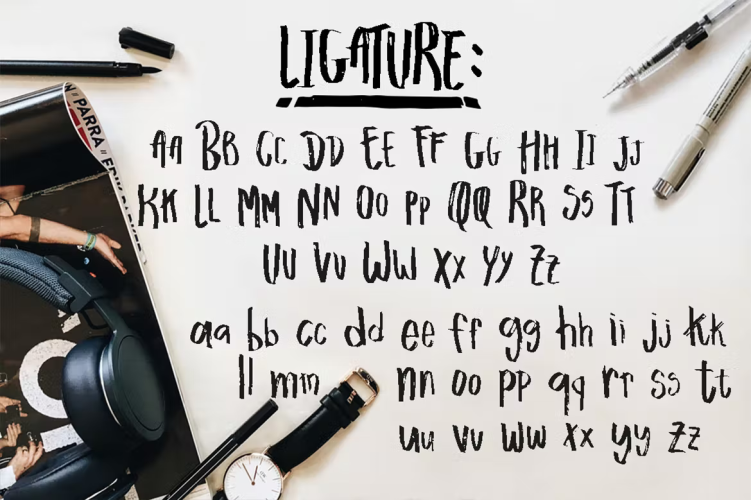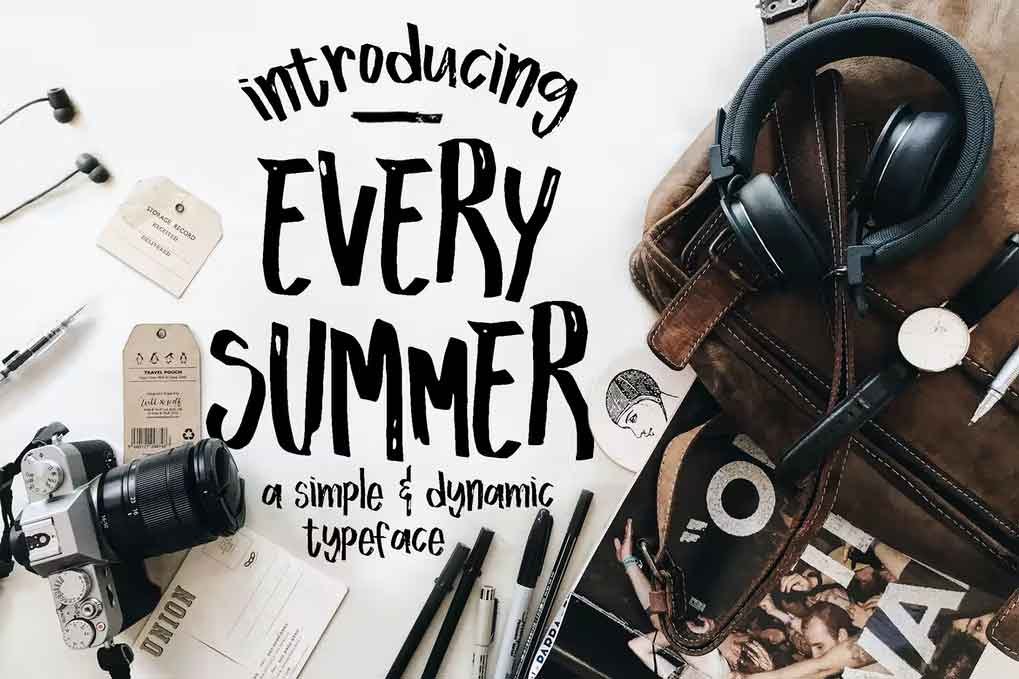
Every Summer Font
Every Summer is a dynamic, spontaneous typeface created manually using brush and marker. With a complete glyph available in the family, you can use Every Summer to create greeting card title, signature for design work, badge and sticker, logo and return address, some cover design and so forth, you decide!
Every Summer comes with complete accented glyphs for international languages and also, special ligature feature that allows you to create different look to your design.
Where Every Summer Font works best
A short phrase in Every Summer Font carries warmth that a typeset sans cannot fake; keep the rest of the card plain.
Chalkboard-style headings in Every Summer Font make a menu feel hand-made. Keep the dish descriptions in a simple face so prices stay readable.
One line of Every Summer Font over a photo is enough; the script carries the tone and the caption does the work.
What kind of work does Every Summer Font suit?
It sits in the Script And Handwritten group and reads as branding, script, script and handwritten, serif. That makes it a candidate wherever those qualities help: headings, packaging, social graphics and brand work. Set it at the size you plan to use before deciding.